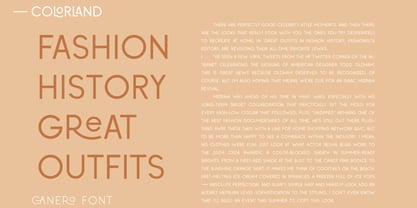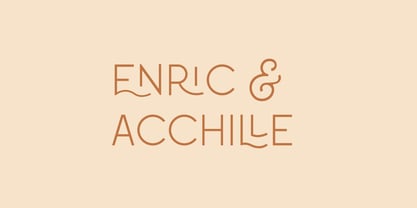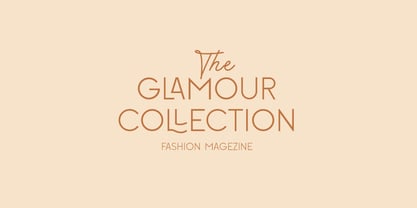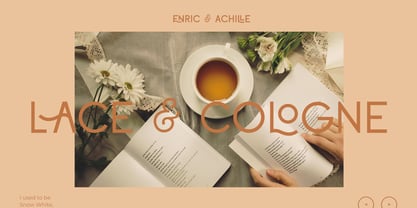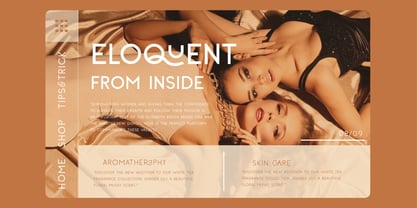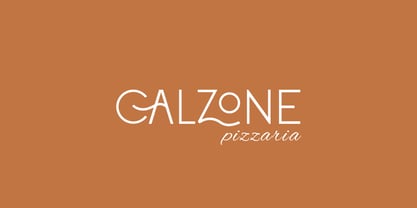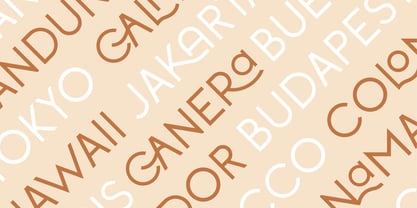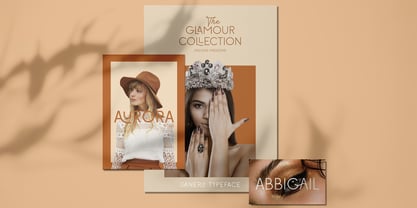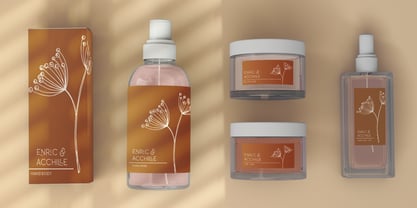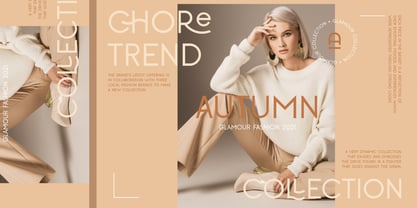
CCS Canera
La familia tipográfica CCS Canera fue diseñada por Kurt Harahap y publicada por Creative Corner Studio. CCS Canera contiene 3 estilos y opciones de paquete familiar. Más información sobre esta familia
Introducing Canera Sans Serif, a simple yet elegant modern typeface featuring beautiful ligatures, a plethora of special alternative glyphs, and ornamental designs, along with multilingual support. This versatile font excels in both large and small sizes, making it ideal for a variety of applications. Perfect for branding projects, logo design, fashion, cosmetic brands, clothing branding, product packaging, magazine headers, or as a stylish text overlay on any background image.